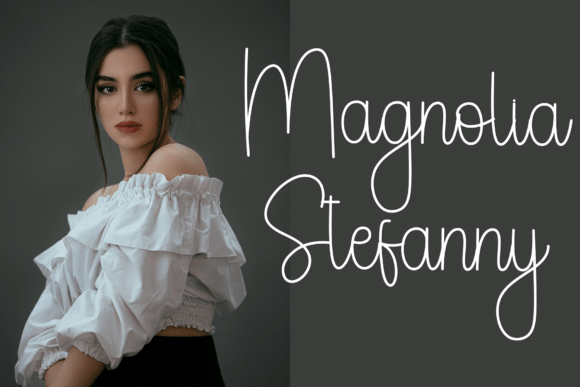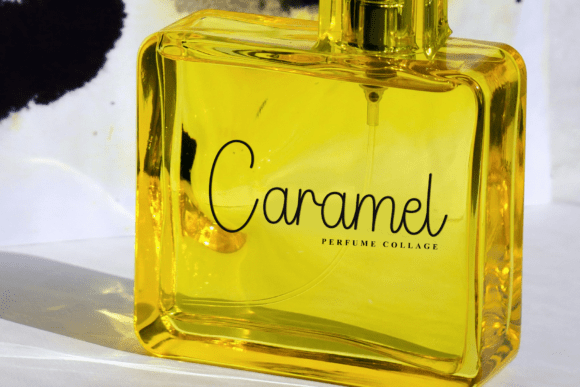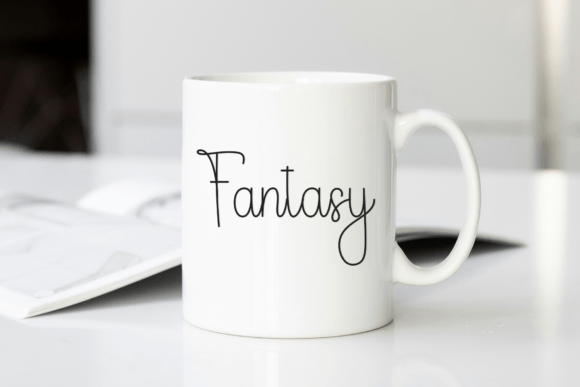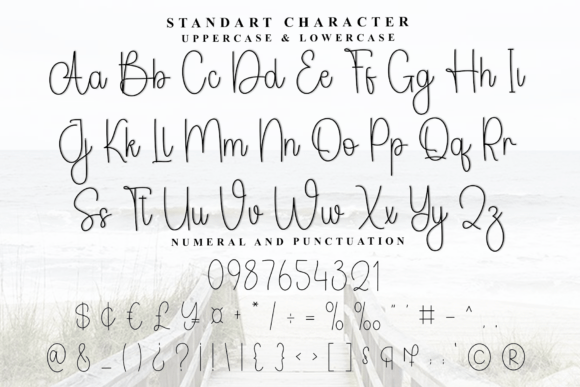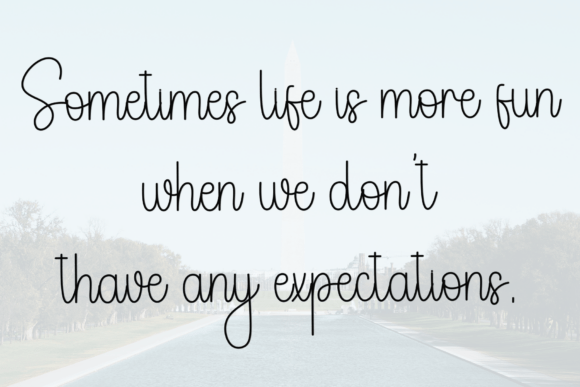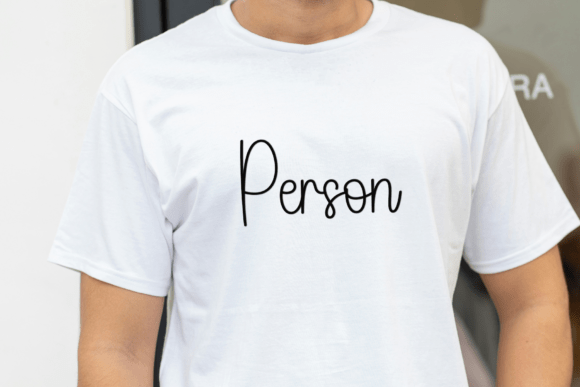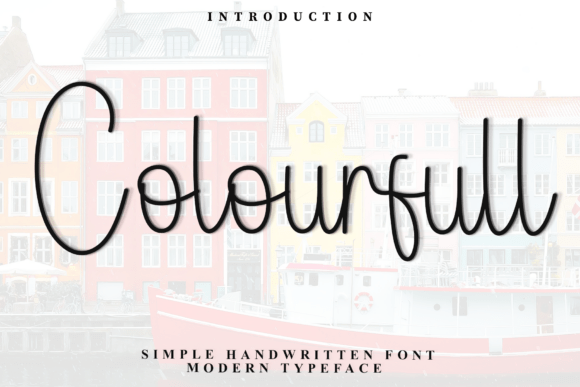
Introducing Colourfull Font: The Ultimate Design Companion
Are you tired of using the same old fonts in your design projects? Look no further! Colourfull Font is here to revolutionize the way you approach typography. This beautiful and eye-catching font is designed with a soft, unique touch that will add a special character to your creations. In this article, we’ll dive into the world of Colourfull Font, exploring its features, benefits, and uses, making it the perfect companion for designers, crafters, and creative enthusiasts.
The Unique Charm of Colourfull Font
Colourfull Font boasts distinctive strokes that give it a special character, making it both meaningful and versatile for future use. Its unique design ensures that your designs stand out from the crowd, capturing the attention of your audience. Whether you’re working on a logo, brochure, or social media graphics, Colourfull Font is the perfect choice to add a touch of personality to your project.
A World of Characters at Your Fingertips
One of the standout features of Colourfull Font is its vast array of characters. With a wide range of letters, numbers, and symbols, you’ll have everything you need to create stunning designs. From elegant headings to playful body text, Colourfull Font has got you covered. Its versatility makes it an excellent choice for various design projects, crafts, and other creative works.
Seamless Compatibility for Endless Possibilities
Unlock Endless Creative Possibilities
With Colourfull Font, the possibilities are endless! Use it to:
- Create stunning logos and branding materials that capture the essence of your business
- Design eye-catching posters, flyers, and brochures that grab attention
- Develop unique social media graphics that elevate your online presence
- Enhance your website’s typography, making it more engaging and user-friendly
- Craft beautiful handmade products, such as cards, invitations, and gift tags
Why Choose Colourfull Font?
So, what sets Colourfull Font apart from other fonts? Here are just a few reasons why designers and crafters love it:
- Unique design: Colourfull Font’s soft, unique touch makes it a standout in any design project
- Versatility: Use it across various applications, from digital to print
- Wide range of characters: Have access to a vast array of letters, numbers, and symbols
In conclusion, Colourfull Font is a game-changer for designers, crafters, and creative enthusiasts. Its unique design, versatility, and compatibility make it the perfect companion for a wide range of design projects. Whether you’re looking to add a touch of personality to your designs or create stunning visual content, Colourfull Font is the ultimate choice. So why wait? Download Colourfull Font today and unlock a world of creative possibilities!